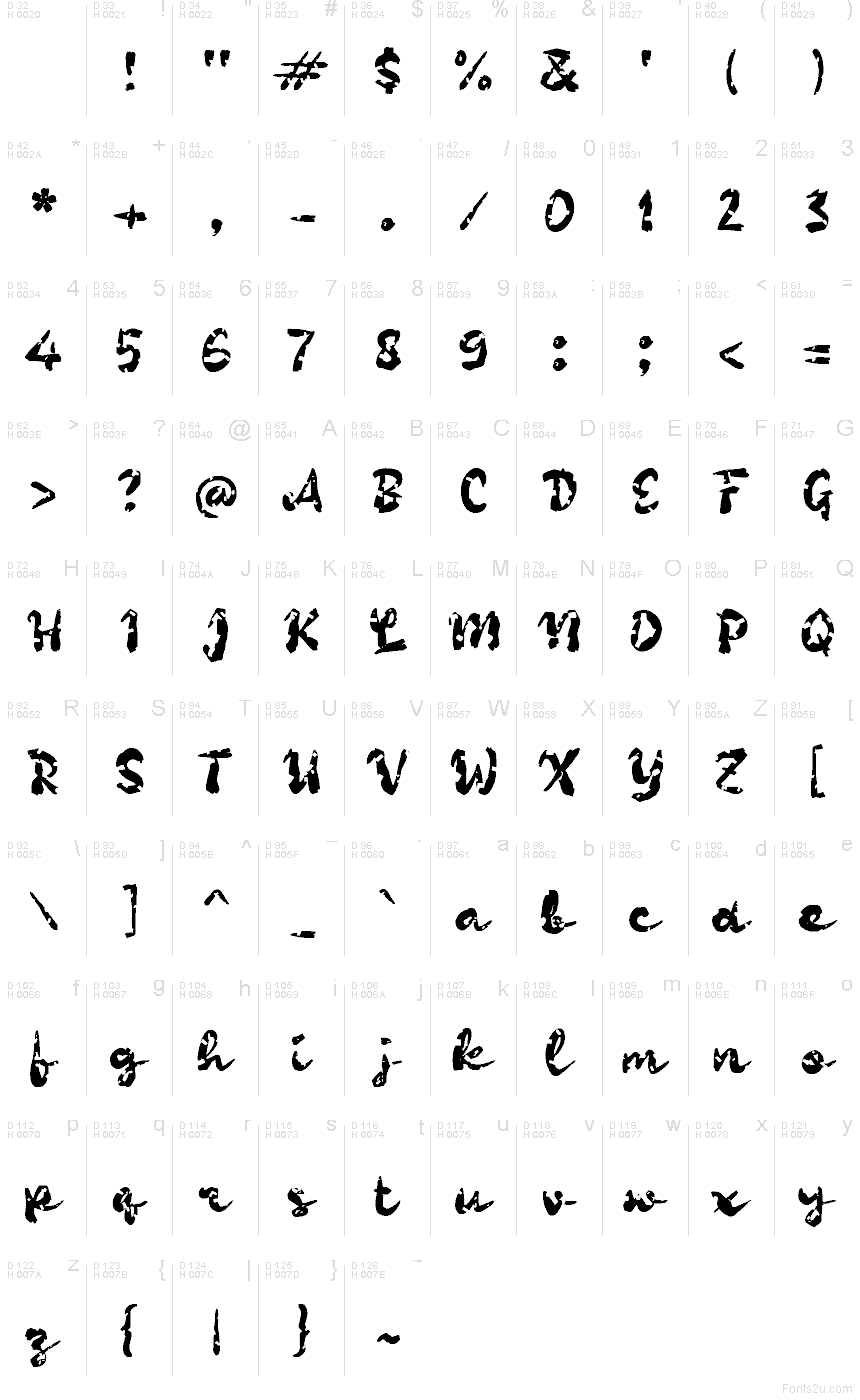
Pafian
Pafian font by wep is a free grunge brush script typeface that looks like it’s been painted in thick, inky strokes and then splattered with holes and scratches. Letters feel wet and heavy, with irregular blobs and rough edges that give every word a torn, handmade attitude. The rhythm is loose and wild, so text feels more like graffiti or a scrawled signature than neat handwriting.
Using Pafian, you get instant chaos energy for album art, underground posters, horror titles, streetwear branding, zines, and edgy social graphics. This free font thrives at larger sizes where its splatters and gaps really show. Pair it with a clean, condensed sans serif for small supporting text to keep layouts readable while Pafian carries the mood.